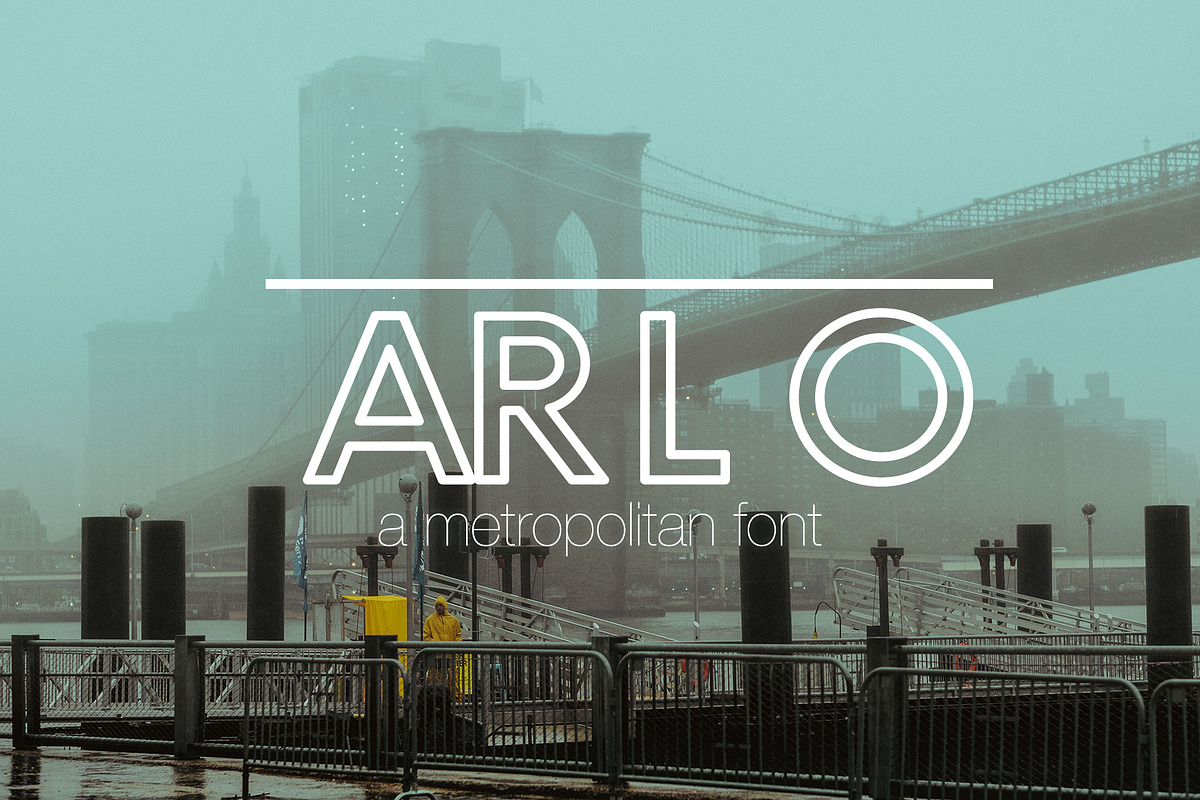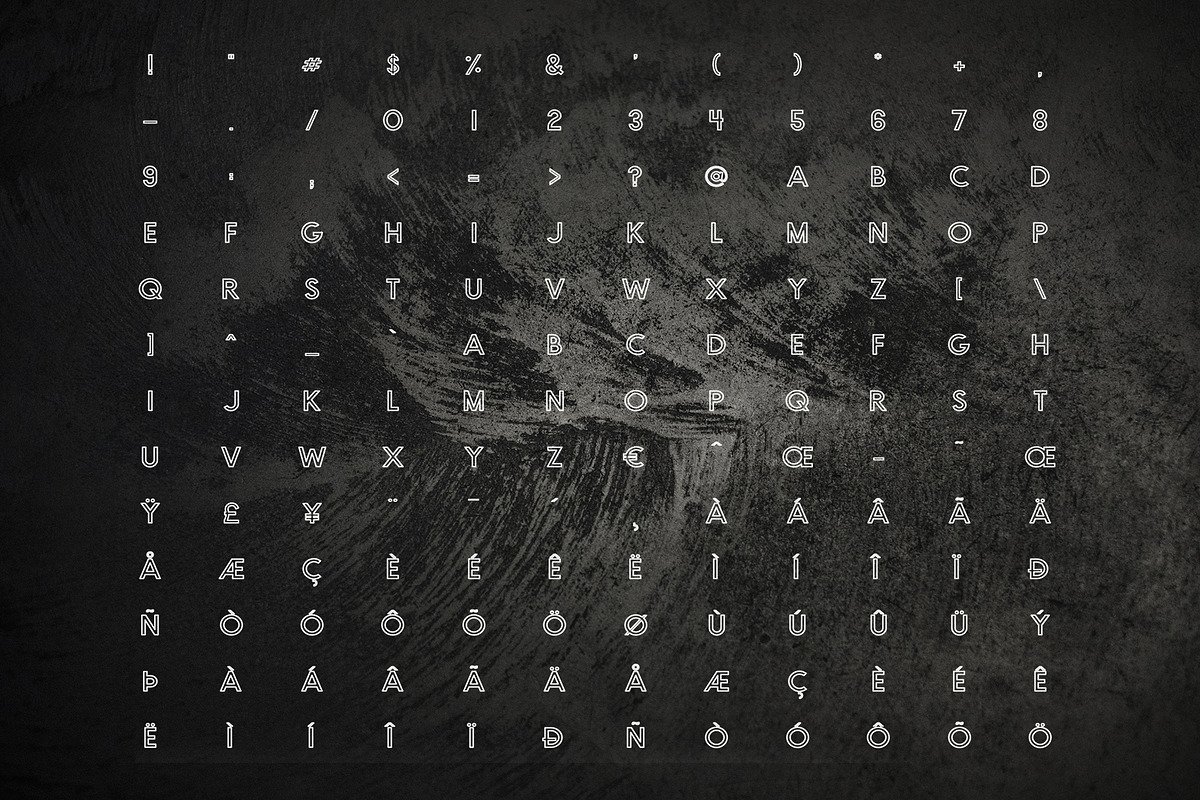
Arlo - An Alternative Outline Font
Arlo is a modern sans serif outline font with a metropolitan flare. Its unique spacing makes for an interesting and classy alternative outline font equally at home in logos and web design, print and branding. Arlo is classy without being over-the-top professional. It captures the vibe of the city.